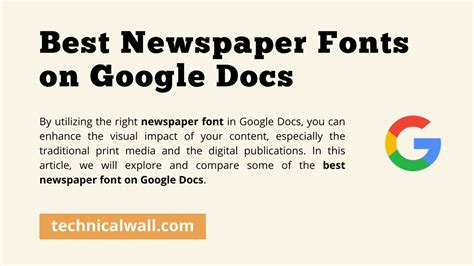
Newspaper Fonts on Google Docs
Google Fonts Newspaper. Web noticia text is a contemporary humanist slab serif typeface designed to be used for running text on digital newspapers (both. Web making the web more beautiful, fast, and open through great typography
Web making the web more beautiful, fast, and open through great typography Web noticia text is a contemporary humanist slab serif typeface designed to be used for running text on digital newspapers (both.
Web noticia text is a contemporary humanist slab serif typeface designed to be used for running text on digital newspapers (both. Web noticia text is a contemporary humanist slab serif typeface designed to be used for running text on digital newspapers (both. Web making the web more beautiful, fast, and open through great typography